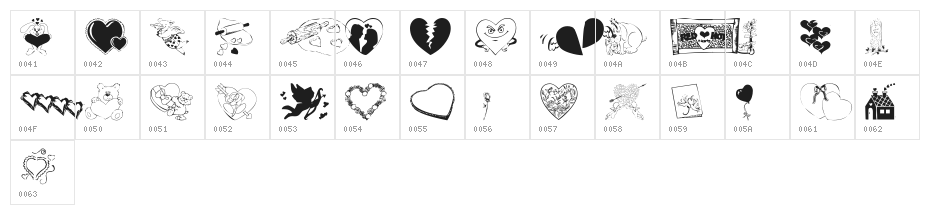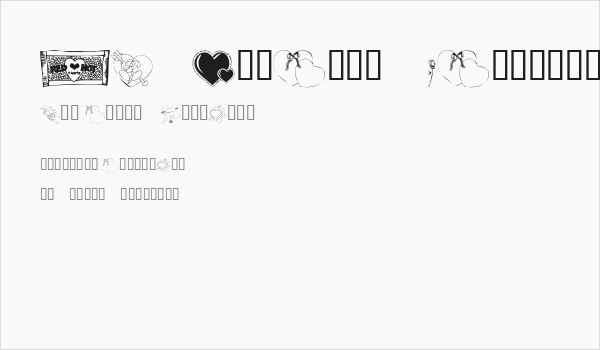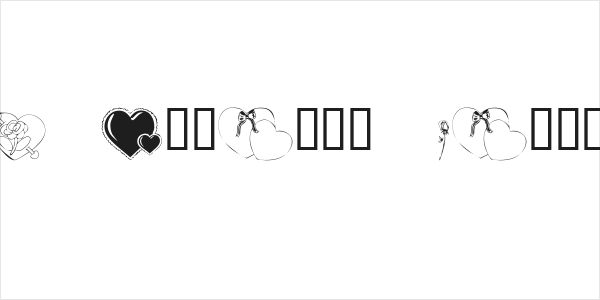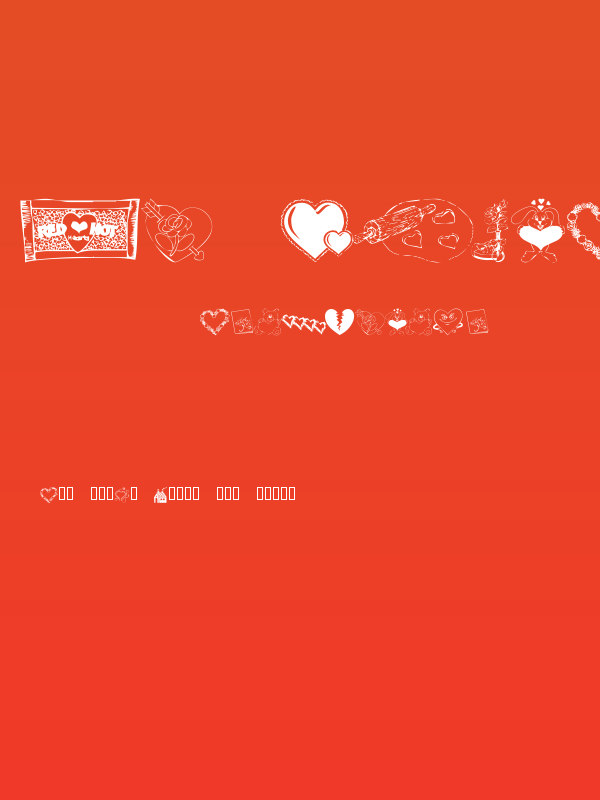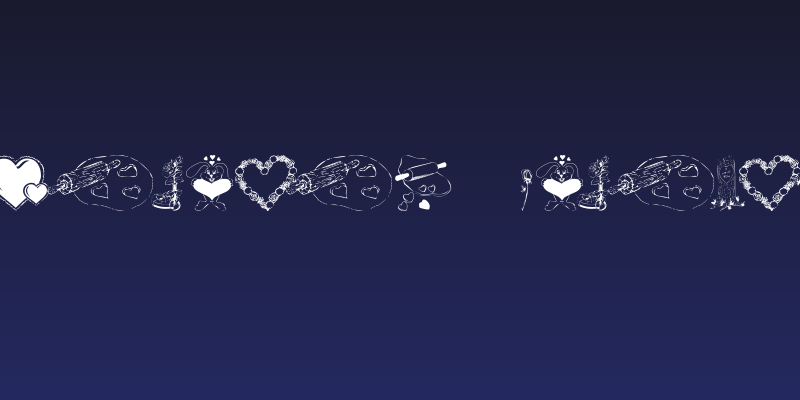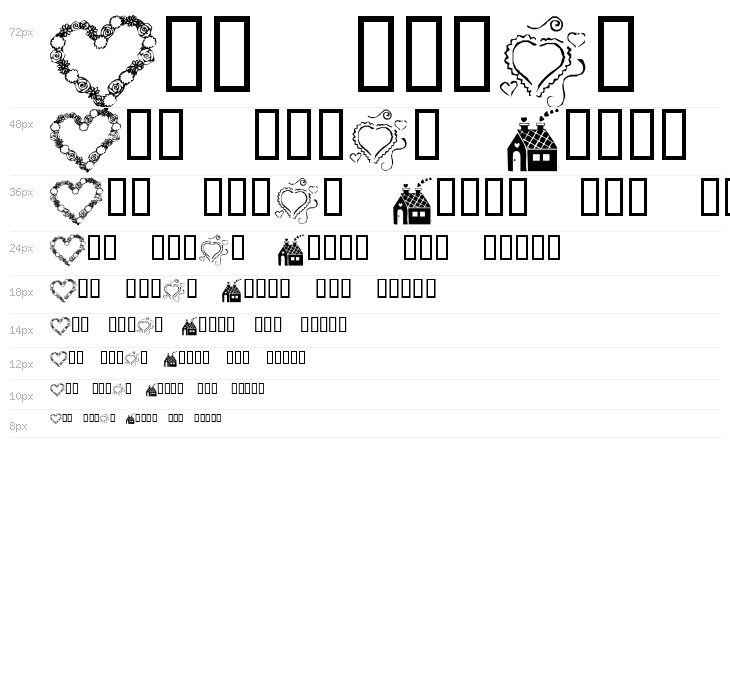
KR Belated Valentine Font
KR Belated Valentine Description
A decorative dingbat font featuring various ValentineΓ’β¬β’s Day-themed illustrations such as hearts, couples, cupids, flowers, and romantic motifs. Each character is represented by a unique, hand-drawn style graphic, making it suitable for creative and festive designs.
| Overall Style | Decorative, Playful, Romantic |
| Use Case | Decorative elements, Icons, Themed graphics |
| Proposed Projects | Greeting cards, wedding invitations, romantic event flyers, scrapbooking, decorative headers. |